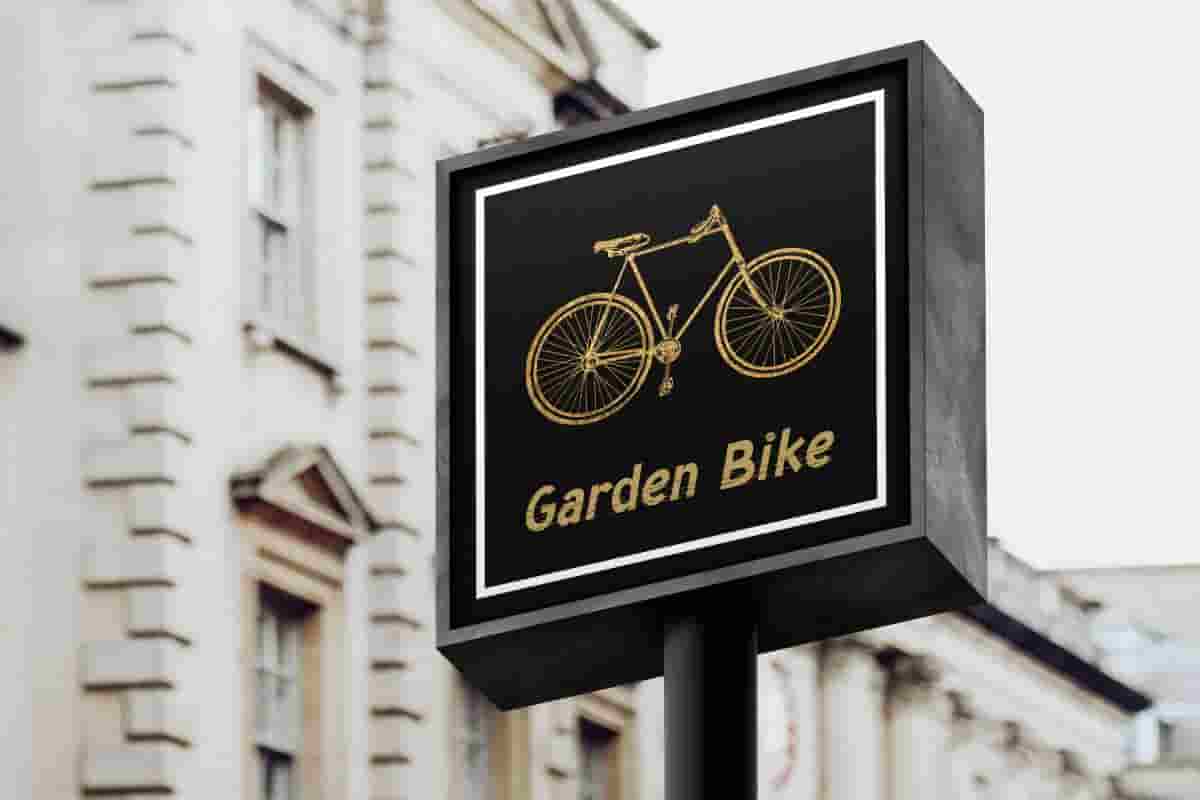
Speed Boom Font Display
Speed Boom Font is a gaming speedy sans display font by RaisProject. This modern font has a special strokes on the letters. Use this font right away and see how amazing it is in your designs!
Speed Boom Font is a gaming speedy sans display font that will make your designs catchy! The font works well with many projects from brand logo, gaming menus, cover packaging, labels, posters, movies tittle, signboard, website, and more! You can see the demo font below, input any word you want so you can see what it looks like:
Speed Boom Font Display includes a full set of Uppercase and Lowercase Letters, Numerals, and large range of punctuation. This unique style font will be suitable for various industries, such as bike store, café, event organizer, fashion, festival, interior design, photography, printing, publishing, sport stuff, etc. What you get: